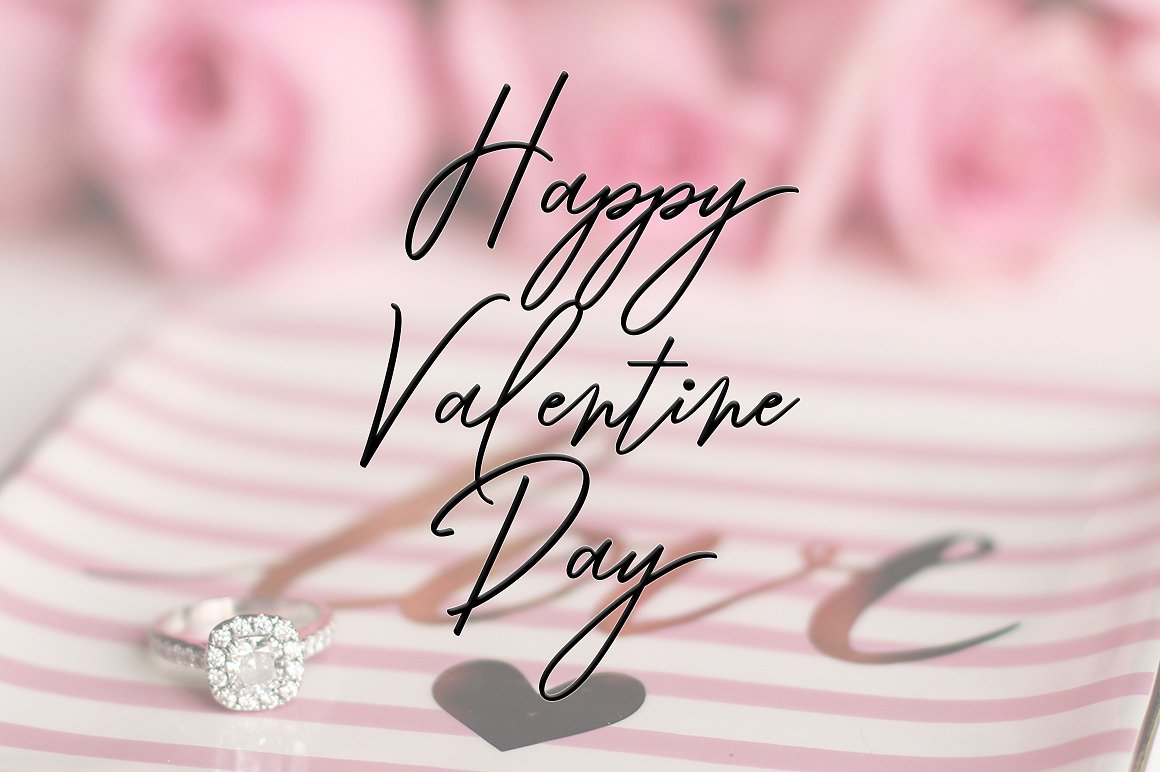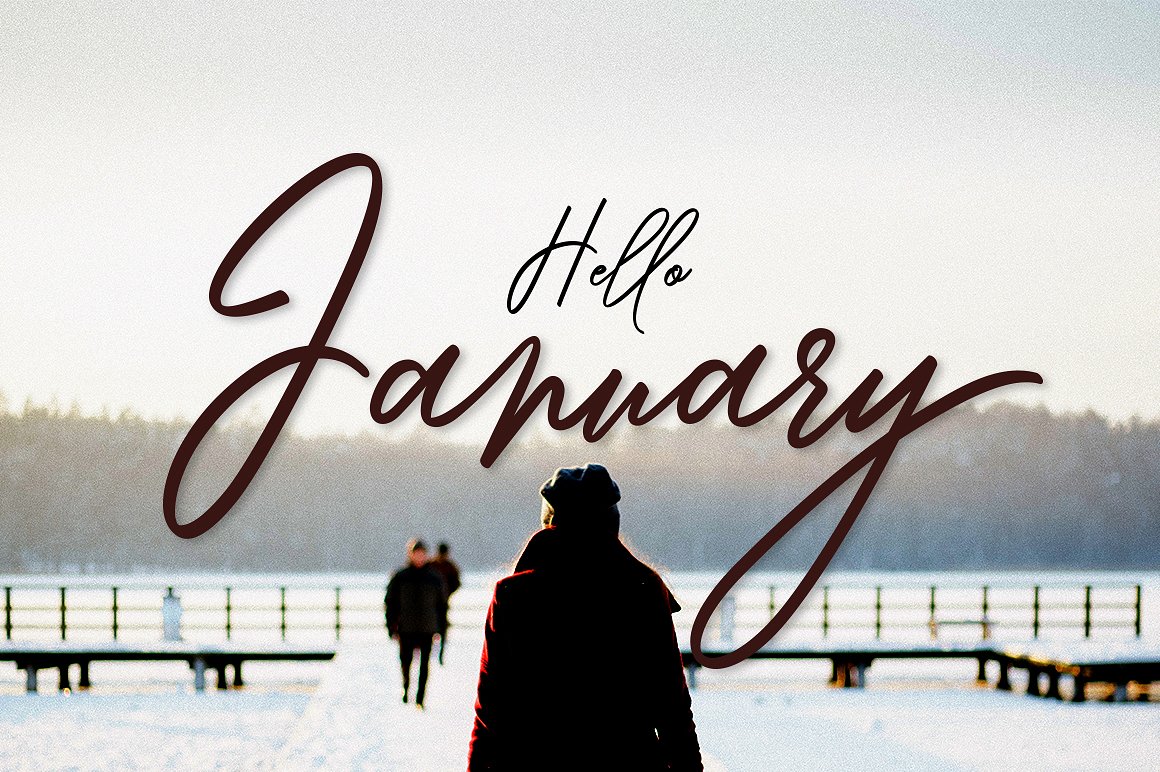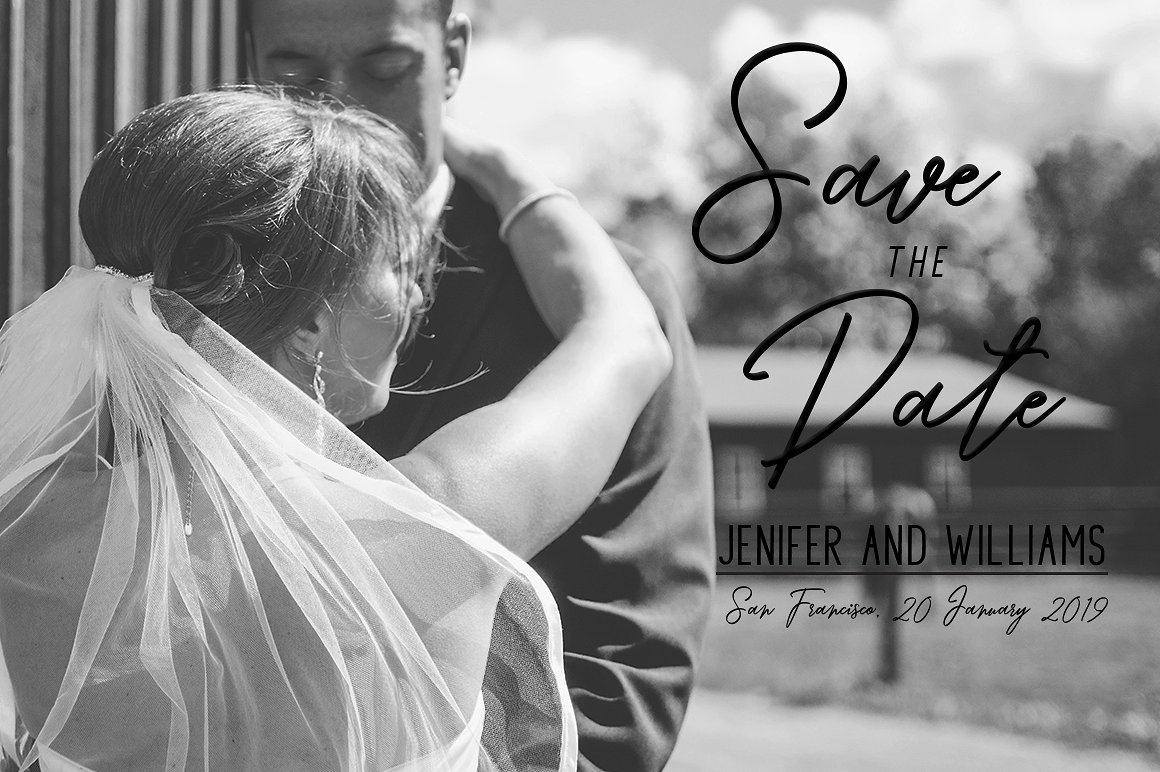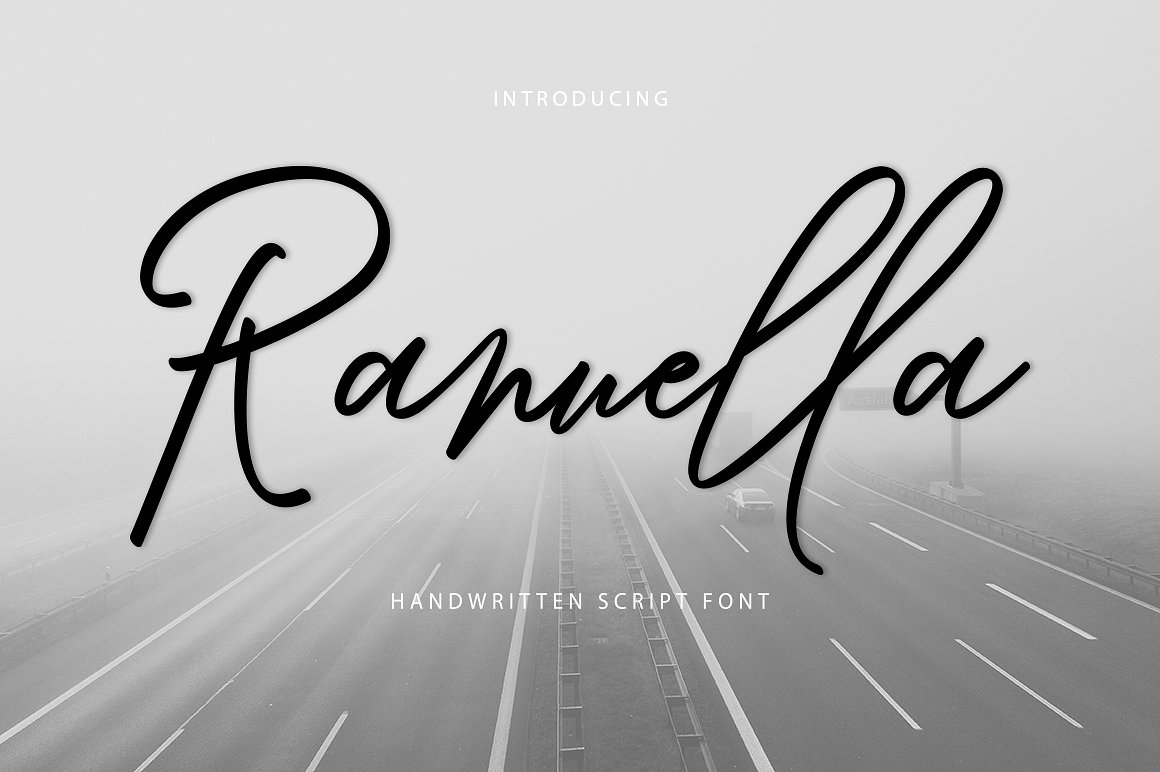
Ranuella Script Font
Now we are proudly presenting you a handwritten script font which will satisfy all your design needs. Introducing Ranuella Font. It is designed by takiyuddin. Ranuella come with 350+ glyphs. The alternative characters were divided into several Open Type features such as Swash, Stylistic Sets, Stylistic Alternates, Contextual Alternates. The Open Type features can be accessed by using Open Type savvy programs such as Adobe Illustrator, Adobe InDesign, Adobe Photoshop Corel Draw X version, And Microsoft Word.